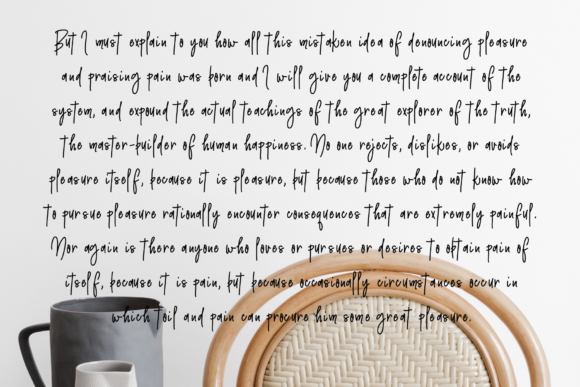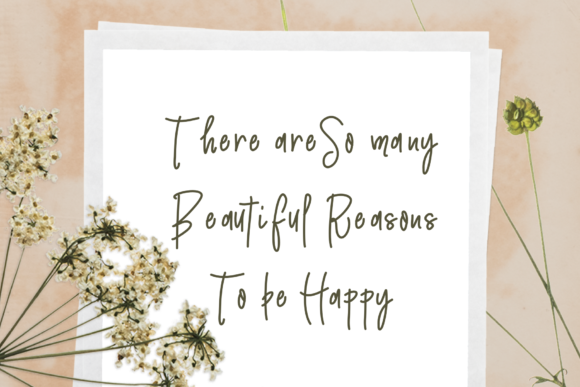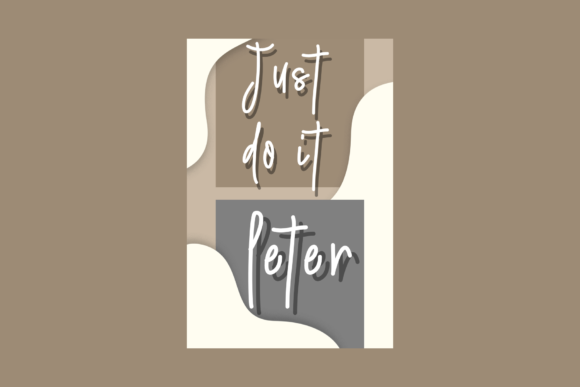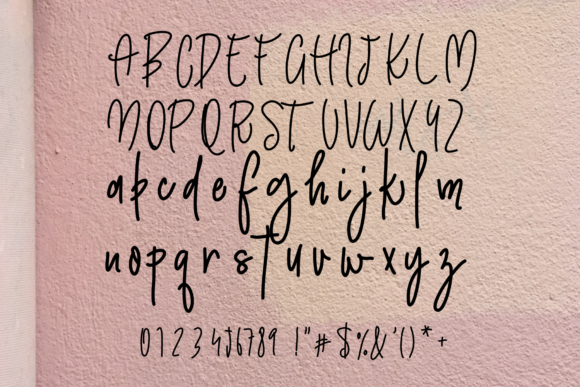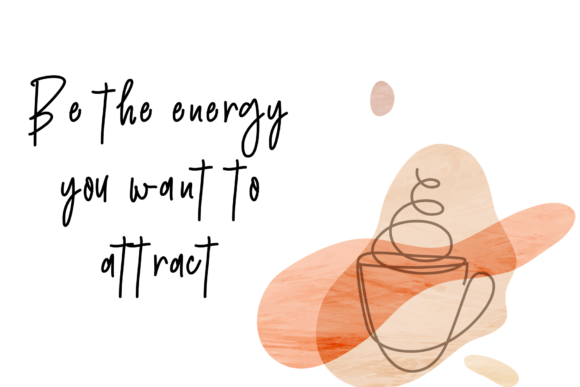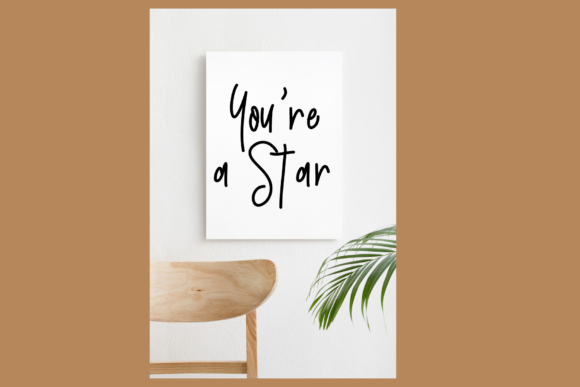
Introducing Brooklyn Font: A Timeless Elegance with a Touch of Magic
Are you on the hunt for a font that exudes elegance, sophistication, and a dash of whimsy? Look no further than Brooklyn Font, a beautiful handwritten typeface that is sure to captivate your audience. With its unique blend of classic style and friendly feel, Brooklyn Font is the perfect choice for designers and crafters looking to create original and outstanding designs.
The Story Behind Brooklyn Font
Brooklyn Font is a carefully crafted handwritten font that boasts a magical touch of elegance. Its creator has poured their heart and soul into designing a typeface that combines the best of timeless elegance and authentic calligraphy. The result is a font that is both classic and approachable, making it perfect for a wide range of design projects.
What Makes Brooklyn Font So Special?
So, what sets Brooklyn Font apart from other fonts out there? Here are just a few of its standout features:
- Incredibly Classic Style: Brooklyn Font features a classic style that is reminiscent of traditional calligraphy. Its elegant lines and curves evoke a sense of sophistication and refinement.
- Friendly Feel: Despite its classic style, Brooklyn Font still manages to feel friendly and approachable. This makes it perfect for designs that need to convey a sense of warmth and personality.
- Perfect for Original Designs: Brooklyn Font is designed to help you create original and outstanding designs. Its unique character and charm make it the perfect choice for designers and crafters looking to stand out from the crowd.
Uses for Brooklyn Font
Brooklyn Font is a versatile typeface that can be used for a wide range of design projects. Here are just a few ideas to get you started:
- Wedding Invitations: Brooklyn Font is perfect for wedding invitations, with its elegant and sophisticated style evoking a sense of romance and luxury.
- Branding and Packaging: Use Brooklyn Font to add a touch of elegance and sophistication to your branding and packaging. Its friendly feel makes it perfect for brands that want to convey a sense of warmth and approachability.
- Stationery and Cards: Brooklyn Font is a great choice for stationery and cards, with its classic style and friendly feel making it perfect for a wide range of occasions.
Tips for Using Brooklyn Font
Here are a few tips for getting the most out of Brooklyn Font:
- Use it as a Headline Font: Brooklyn Font is perfect for use as a headline font, with its elegant lines and curves drawing attention and adding emphasis.
- Pair it with Other Fonts: Brooklyn Font pairs well with a wide range of other fonts, making it easy to create interesting and dynamic typography.
- Experiment with Colors: Brooklyn Font looks great in a wide range of colors, so don’t be afraid to experiment and find the perfect hue for your design.
In conclusion, Brooklyn Font is a magical handwritten font that is sure to captivate your audience. With its unique blend of timeless elegance and authentic calligraphy, it’s the perfect choice for designers and crafters looking to create original and outstanding designs. Whether you’re working on a wedding invitation, branding project, or stationery design, Brooklyn Font is sure to bring a touch of magic to your work.